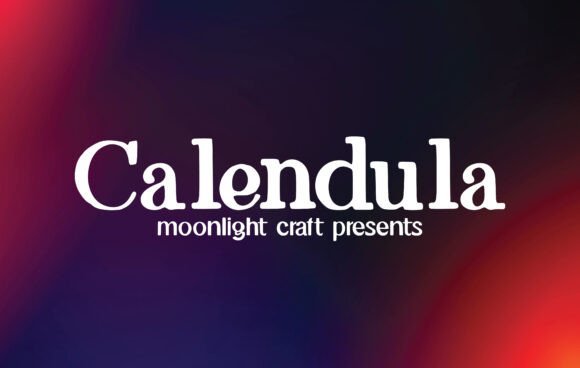
Unleash Your Creativity with the Calendula Font
Have you ever been stuck on a creative project, staring at a blank page or screen, waiting for that spark of inspiration to strike? It’s a familiar feeling for many designers, but what if you had the perfect tool to help you break through that creative block?
Enter the Calendula Font, a beautiful and elegant handwritten font that’s sure to elevate your designs to new heights. This lovely font is perfect for creating eye-catching logos, branding, and quotes that will leave a lasting impression on your audience. With its unique and versatile style, the Calendula Font is a valuable asset for designers looking to add a touch of sophistication and whimsy to their work.
Calendula Font Key Features
- Unique Character: The Calendula font boasts a distinctive, hand-drawn feel with elegant lines, giving it a touch of sophistication and elegance.
- Font Style: Available in both regular and italic styles, providing flexibility in design applications.
Calendula Font Review
Overall, I was quite pleased with Calendula Font. It has a unique charm that’s perfect for adding a touch of elegance to any project. ✨
- Legibility: Calendula Font is highly legible, making it perfect for body text.
- Character Variations: The font has a great range of character variations, from uppercase to lowercase, which adds to its charm.
- Professional Look: The font has a professional look that’s perfect for corporate projects, wedding invitations, and more.
However, I did encounter some limitations that might affect its usability in certain situations. ⚠️
- Weight Limitations: Calendula Font has limited weight options, which might make it difficult to use in situations where bold or italic text is required.
- Language Support: The font might not support all languages, which could be a problem for projects that require multilingual support.
Overall, I would recommend Calendula Font for projects that require a unique, elegant look. While it has some limitations, its charm and legibility make it a great choice for many designers.
Tips for Getting the Most Out of Calendula Font
Use Calendula Font for creative and elegant designs, such as wedding invitations, branding materials, and packaging.
Experiment with different font sizes, colors, and styles to achieve a unique look.
Combine Calendula Font with other creative elements, such as illustrations and graphics, to add visual interest to your designs.
Calendula Font is perfect for:
Branding materials, such as logos and business cards
Packaging and labeling
Creative and elegant designs, such as magazines and broch
Alternatives to Calendula Font
Carolyna Pro is a beautiful, elegant script font ideal for invitations, wedding stationery, and luxury branding. Its fluid, handwritten feel makes it perfect for creating a sophisticated and romantic atmosphere. When to use: Wedding invitations, luxury branding, and high-end stationery. Compared to Calendula Font, Carolyna Pro has a more refined and polished look, making it suitable for more formal occasions.
Great Vibes is a modern, stylish script font perfect for creating a playful and energetic atmosphere. Its unique, cursive style makes it ideal for branding, advertising, and packaging design. When to use: Branding, advertising, and packaging design. Compared to Calendula Font, Great Vibes has a more contemporary and edgy feel, making it suitable for modern and trendy designs.
Q: What is the recommended font size for using Calendula?
The recommended font size for Calendula varies depending on the intended use. For body text, we recommend a minimum font size of 14-16 points. For headings and titles, you can use larger font sizes up to 36-48 points for optimal legibility.